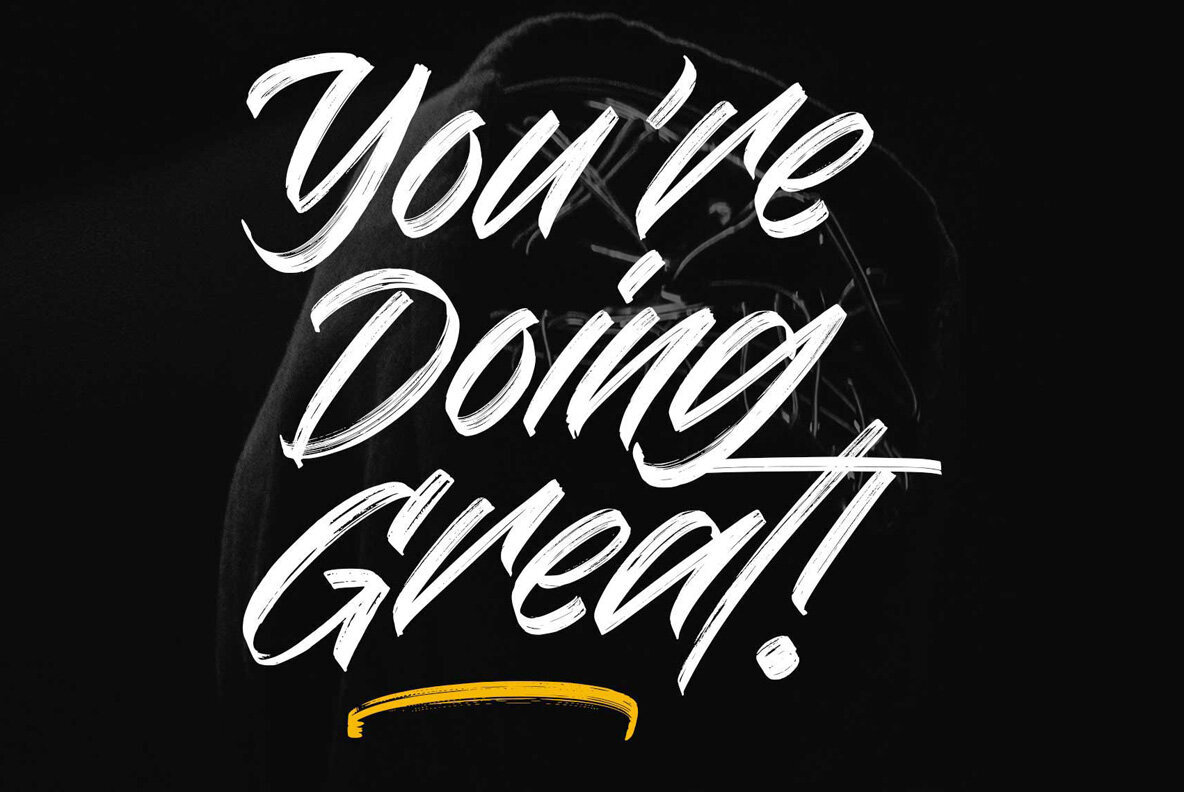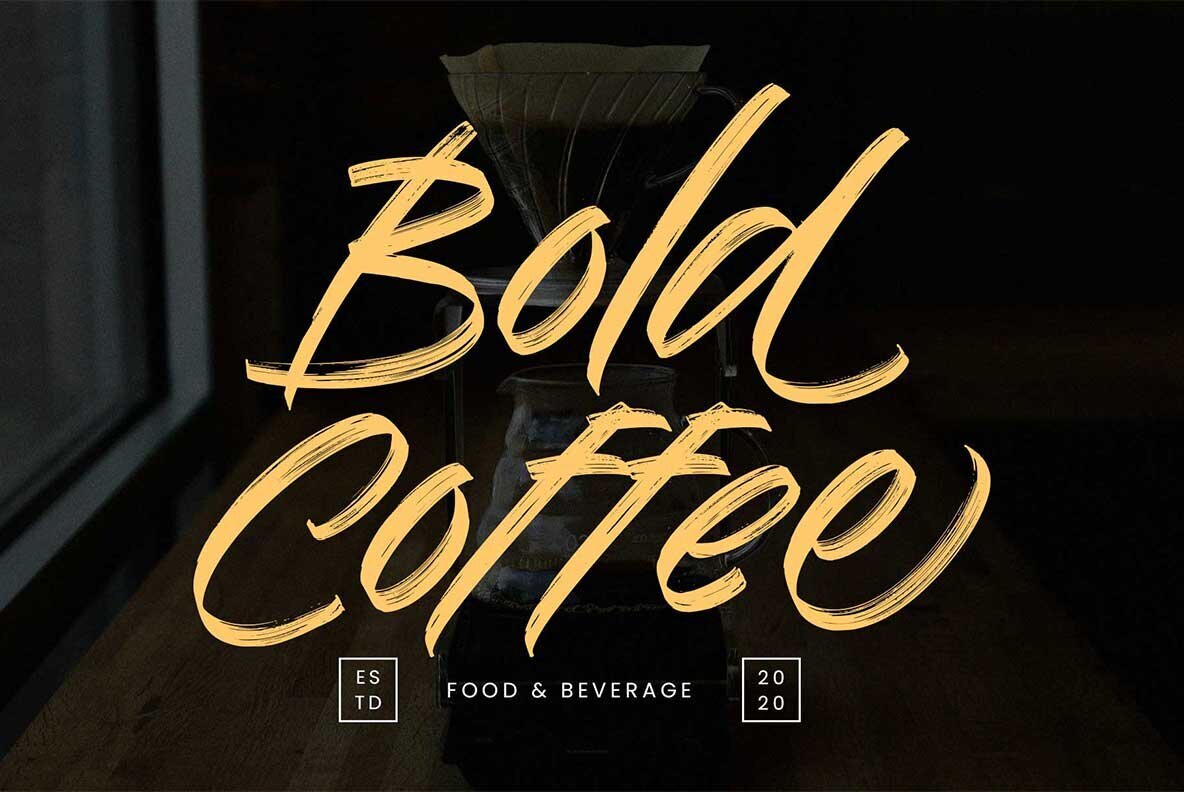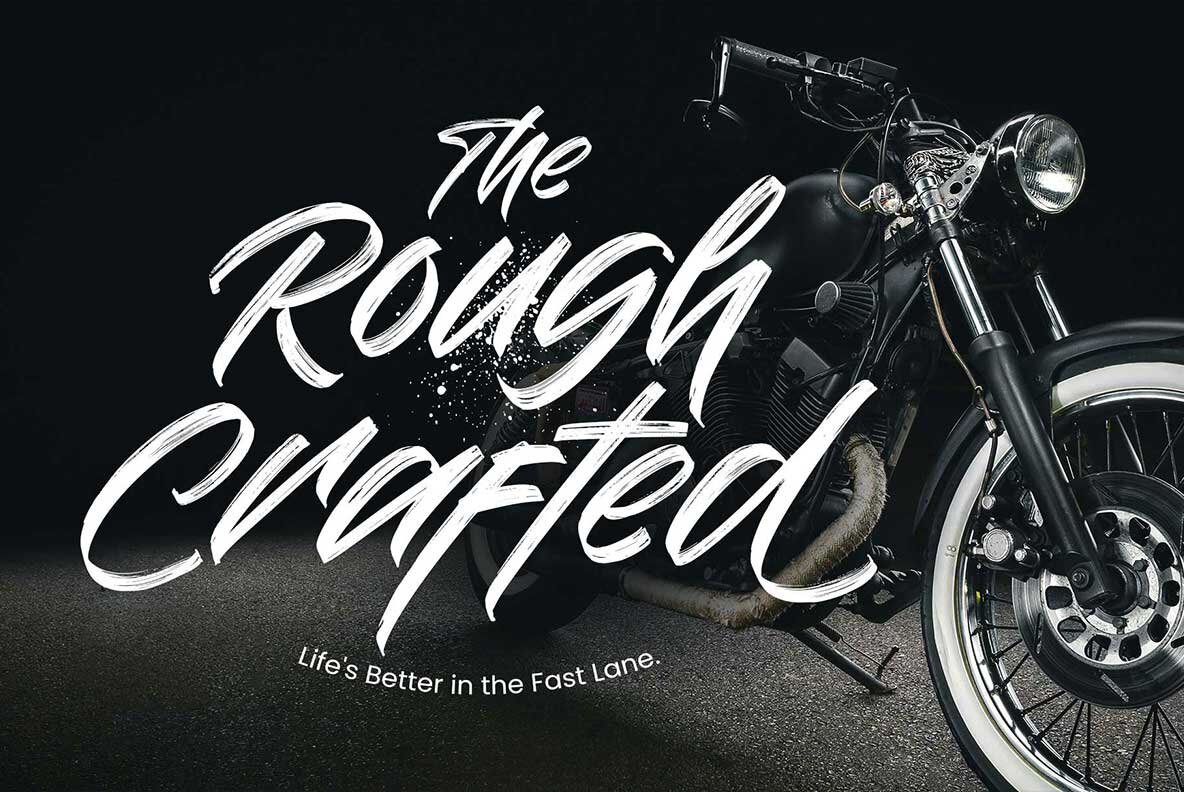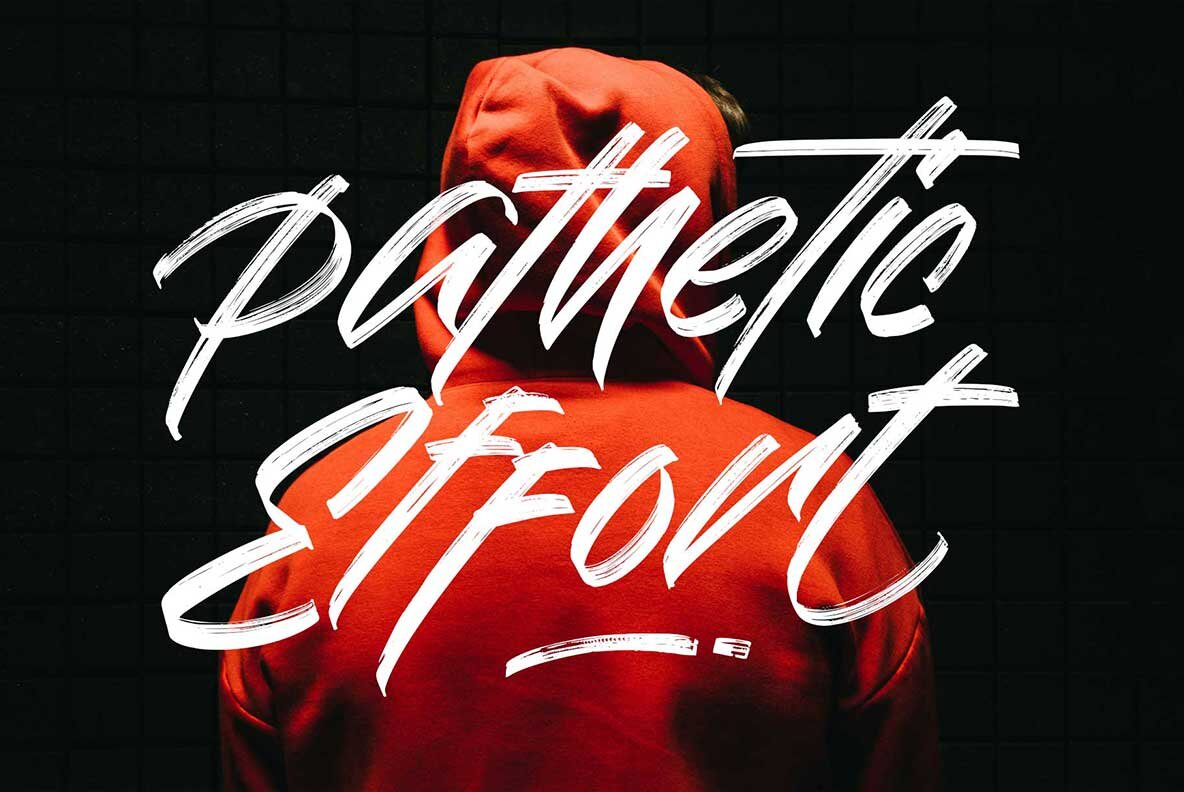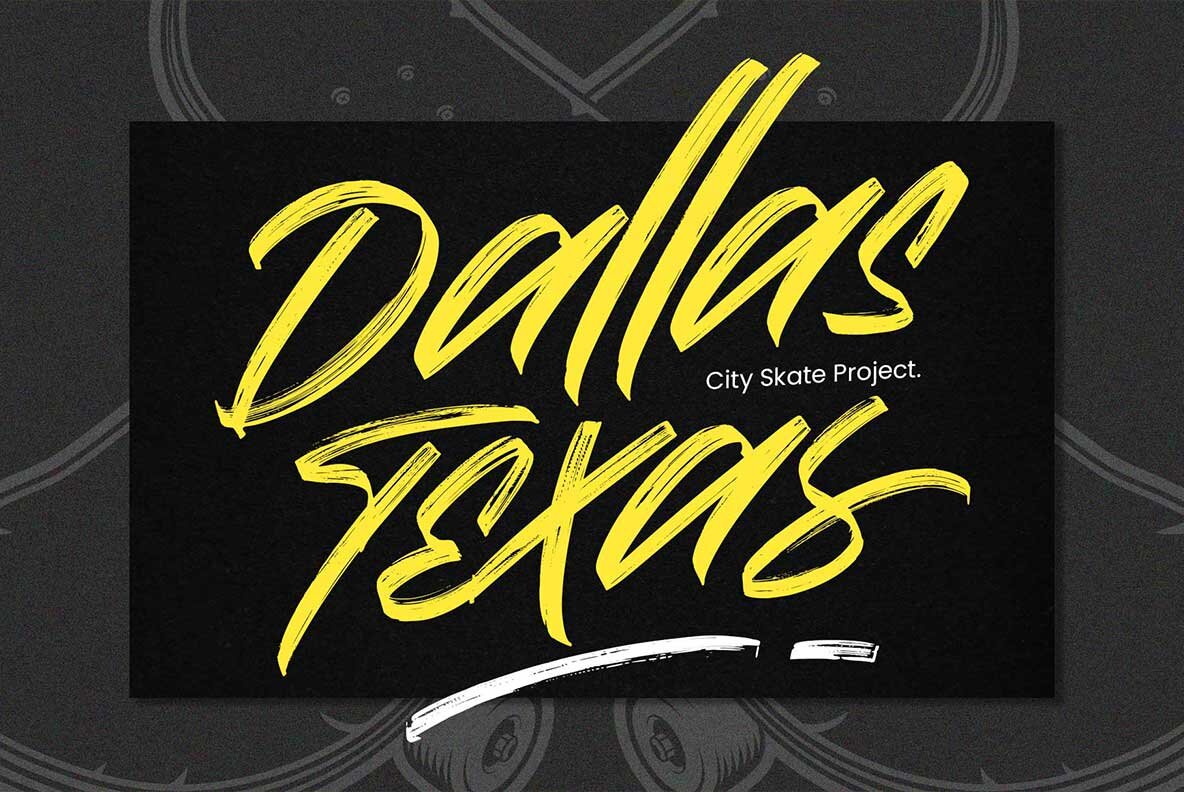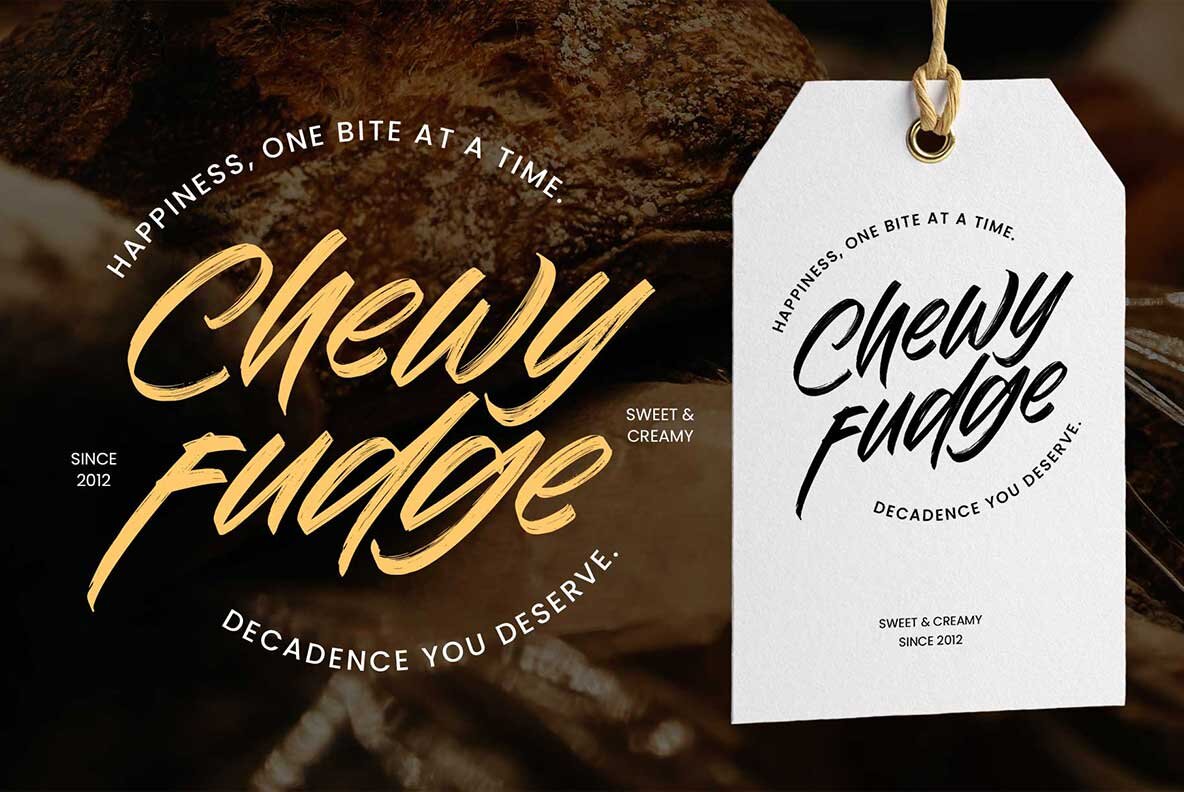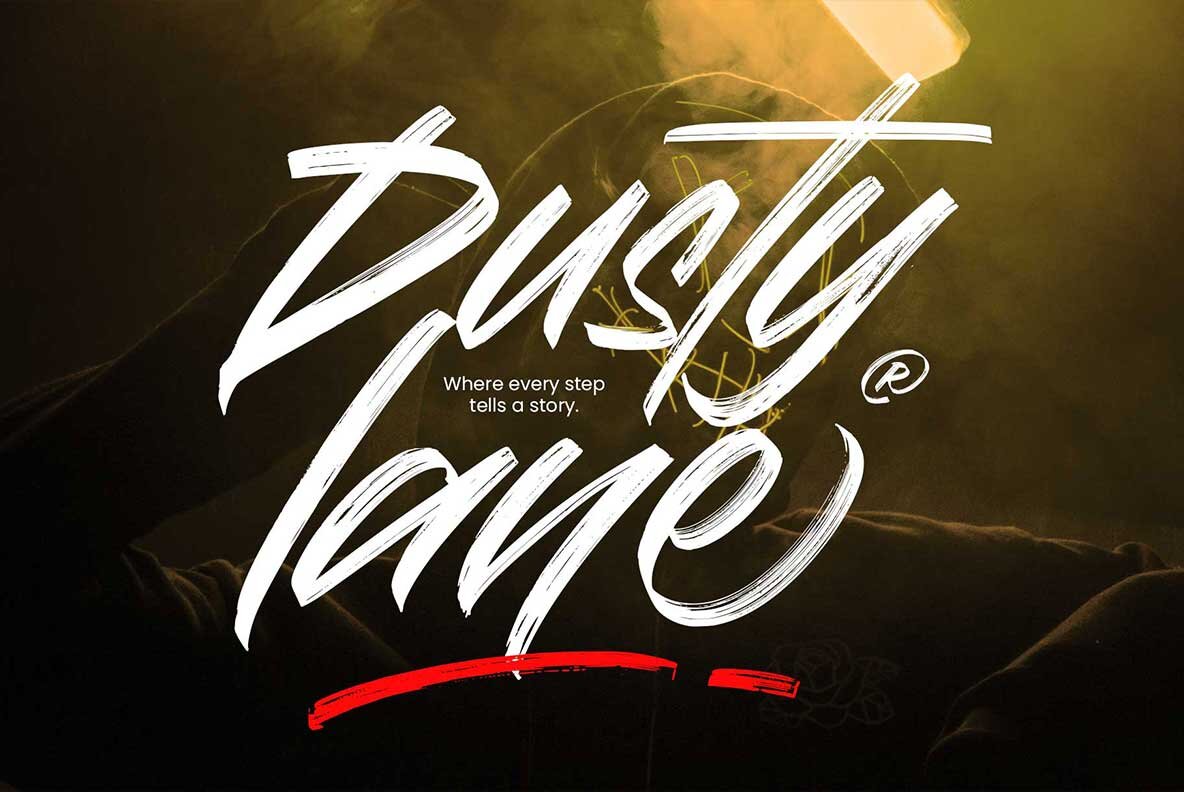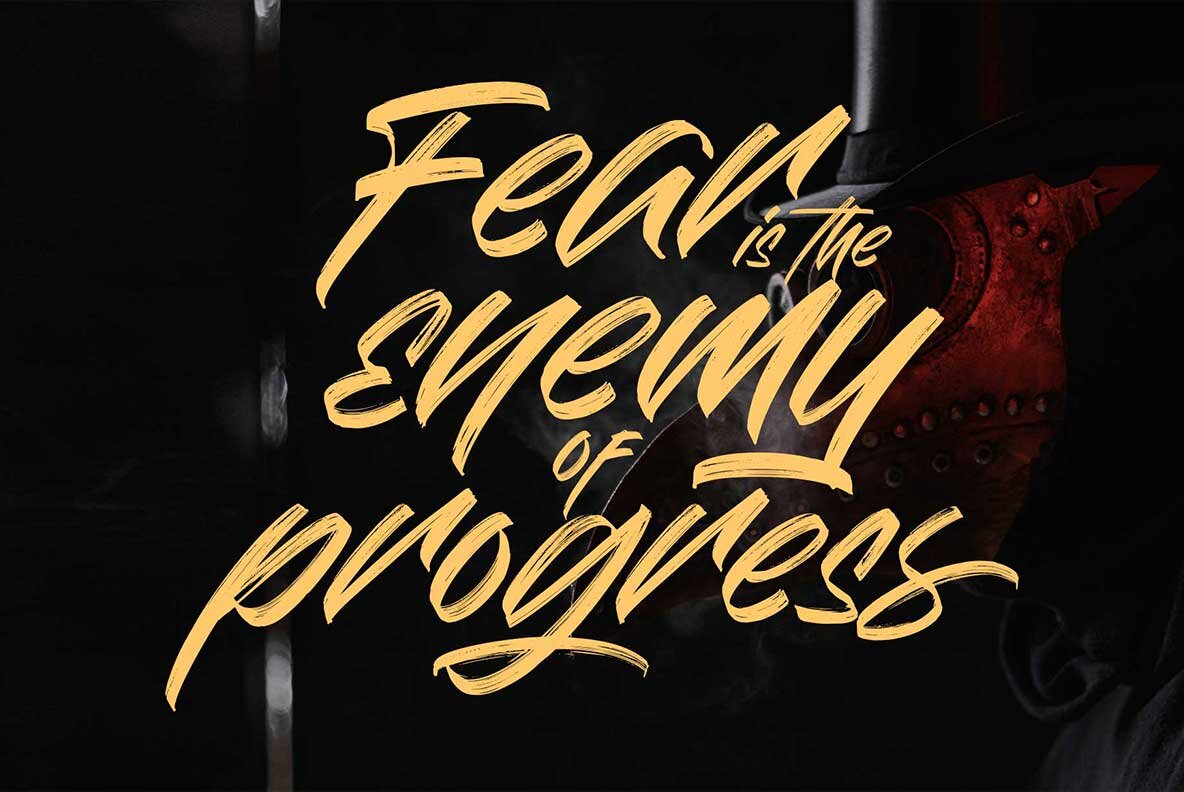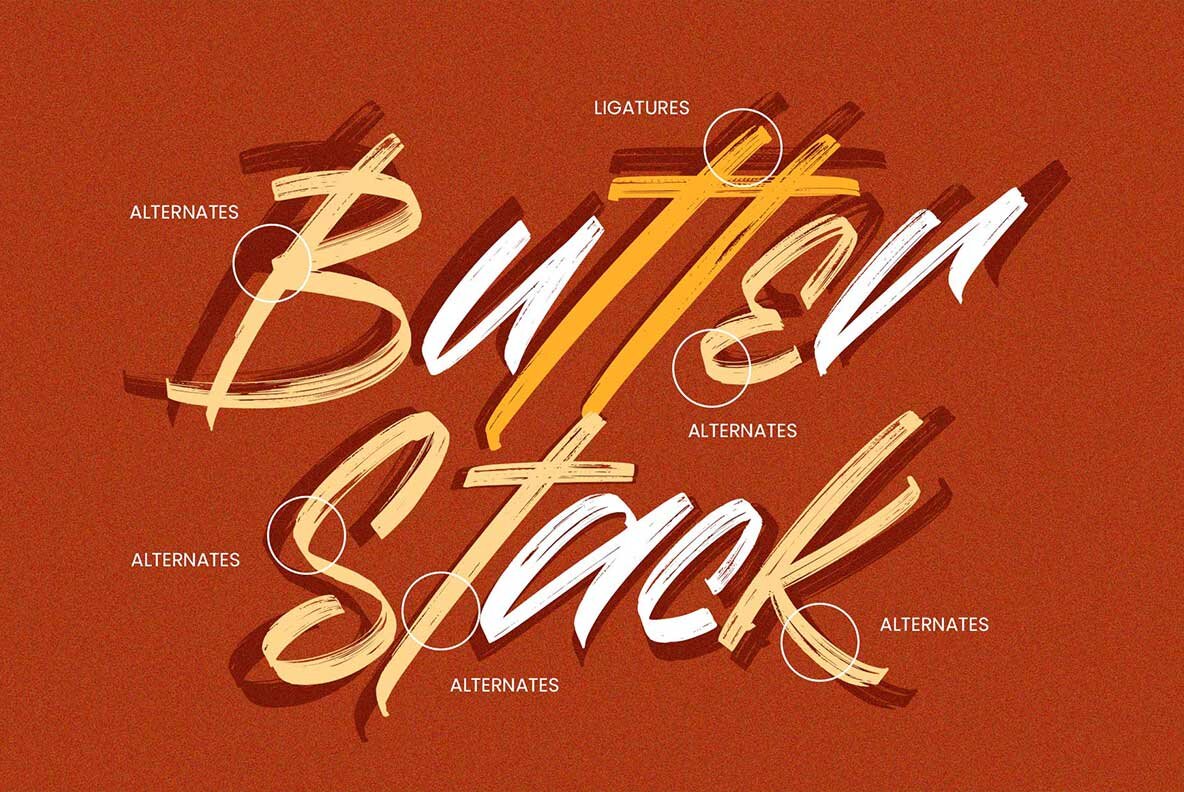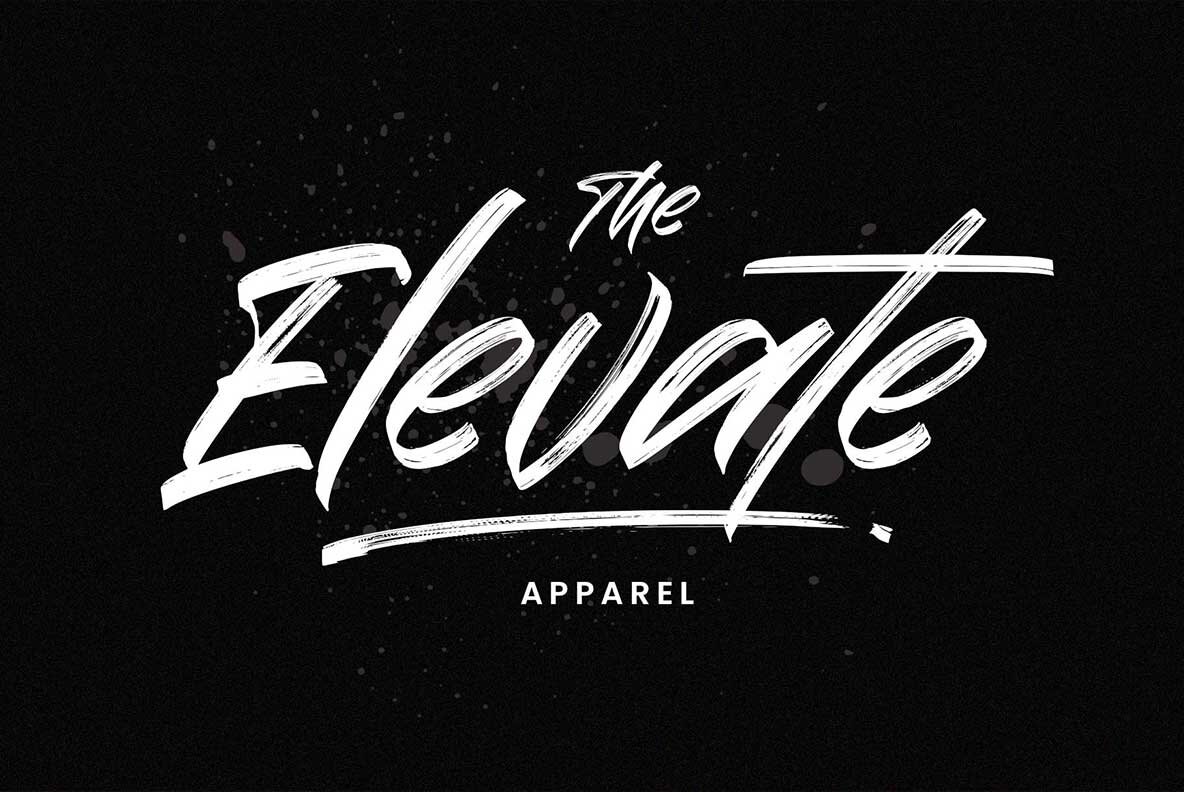
Jackman Font
Jackman Regular
Jackman is a dynamic freestyle brush font characterized by its natural, textured strokes, bringing a joyful and lively aesthetic to any design. This font, marrying energy with elegance, excels in maintaining a clean texture while delivering boldness. It's perfect for those looking to infuse a progressive and vibrant feel into their projects. Jackman shines in informal settings, specifically in display and headline applications like logotypes, stories, magazines, posters, events, apparel, and motion graphics.
This font includes a comprehensive set of design elements such as uppercase and lowercase letters, numbers, symbols, stylistic alternates, swashes, and multilingual support. To fully utilize Jackman's special characters, ensure you're using software that supports OpenType features. This thoughtful crafting makes Jackman an exceptional choice for making impactful, creative statements in various visual endeavors.